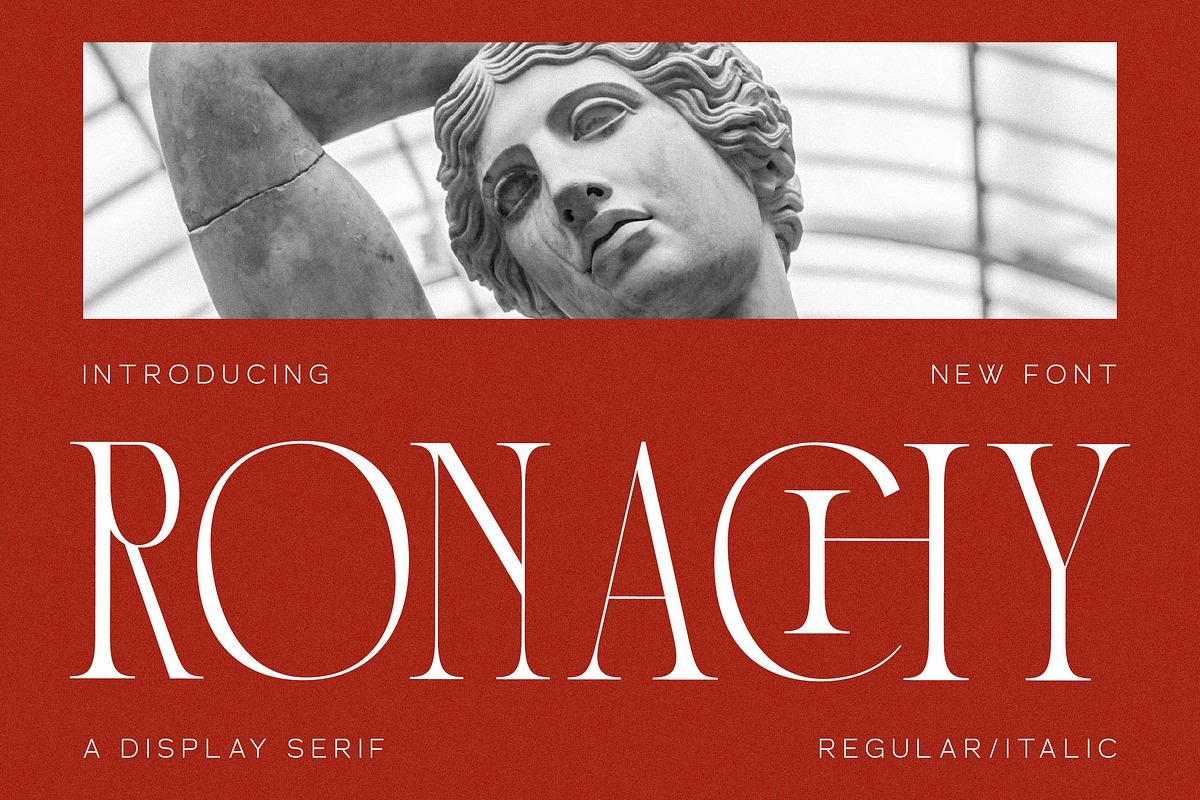
Ronachy A Display Serif Font Free Download
Ronachy A Display Serif Font Free Download is a bold and elegant serif typeface that combines modern sophistication with a touch of vintage charm. Featuring sharp serifs, high contrast strokes, and striking character shapes, Ronachy A is perfect for editorial layouts, branding, logos, posters, and other design projects where you want to make a strong impression.
Its high-impact design makes it ideal for large headlines and display text, providing both readability and visual appeal. Whether you're designing for luxury brands, fashion, or artistic campaigns, Ronachy A adds a timeless, stylish element to your typography.